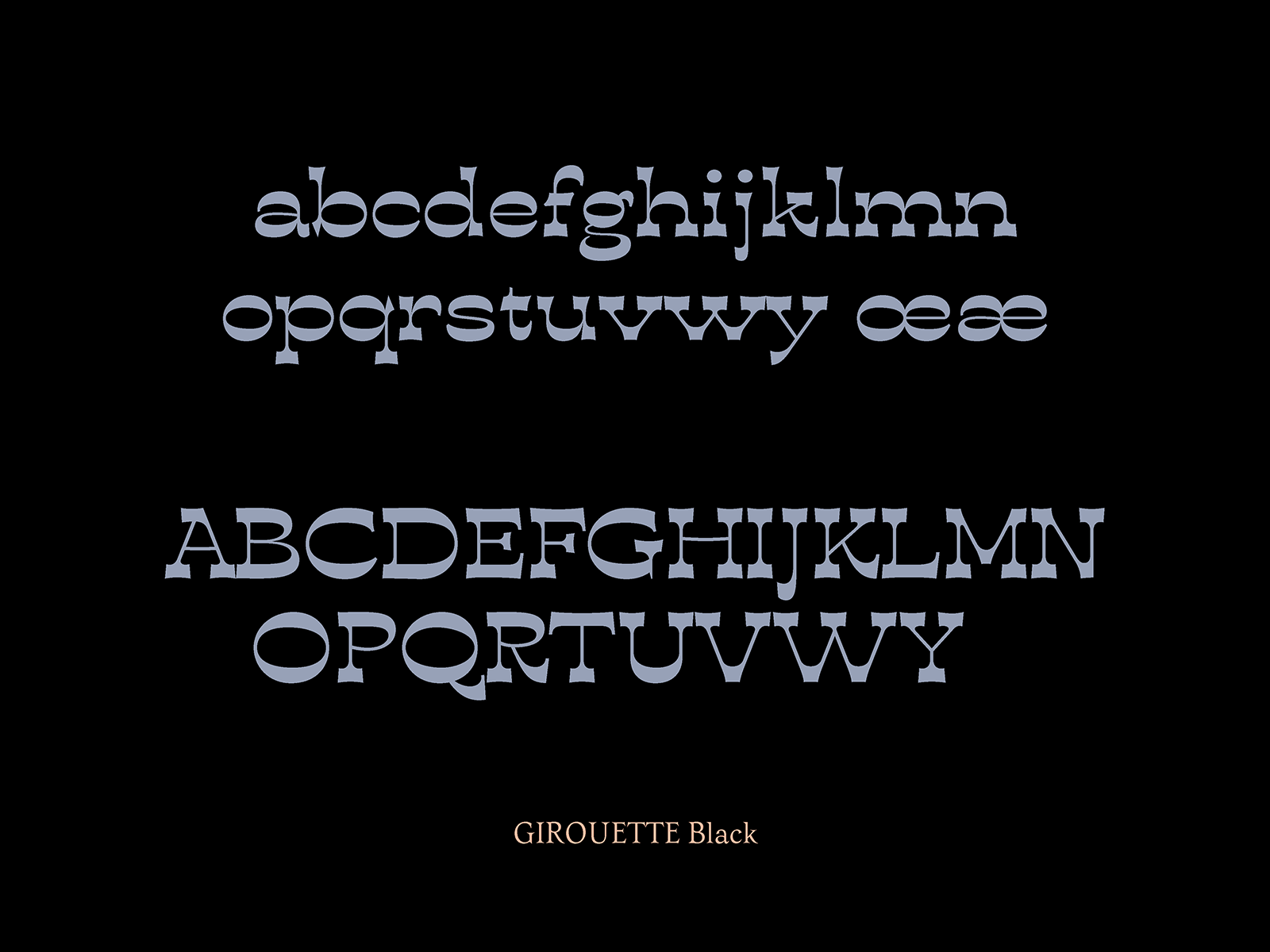
Girouette
Girouette typeface family has been designed by Gina Serret originally for the identity of a very special Antiquarian-restaurant in Barcelona. Regarding the style, it is mainly based on ancient references from Parisian/Barcelona’s street and shop signs and rare books printed in France within the 17th and 19th centuries.
Girouette family offers five different styles, with large variations in proportion, contrast and letter shapes. Although they all look pretty different, all five weights are based on the same humanistic skeleton of personal calligraphy. The most opposed fonts of the family are Girouette Regular and Girouette Display.
Girouette Regular could be considered a narrow body text font with some display features such as quite high contrast, sharp and long serifs and peculiar endings in some letterforms. Following its historical references, it has also long ascendants and descendants. On the contrary, Girouette Display is a wide typeface for headers designed with reversed contrast.
Interpolating these two master fonts, three new styles have been created: Girouette Medium, Girouette Semi-Bold and Girouette Bold. And curiously, characteristic high contrast of the two main fonts –masters– almost disappears in the Semi-Black weight.
Related with the Antiquarian-restaurant, whose products have completely different styles, ages and origins; Girouette typeface family finds the way to mix very unlike styles in a same design.